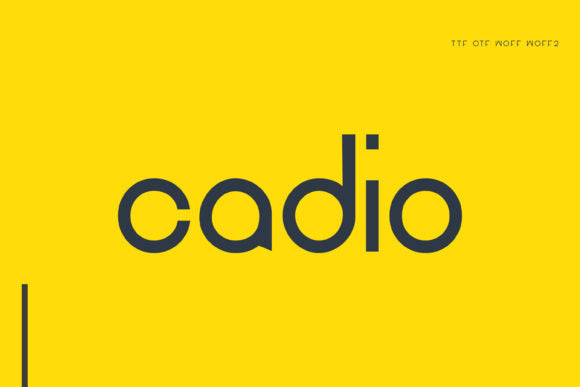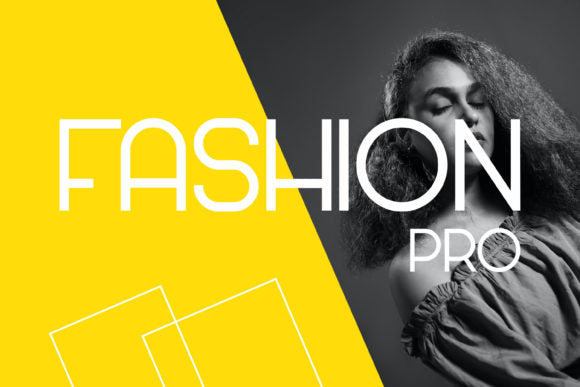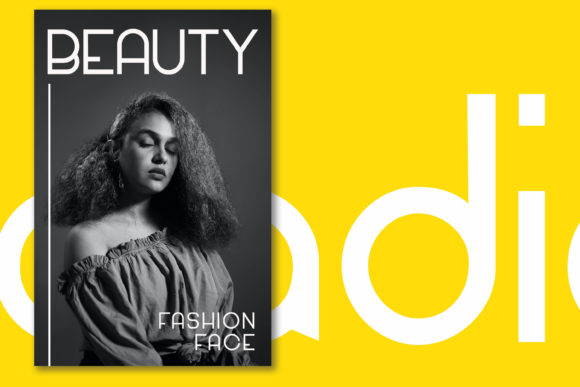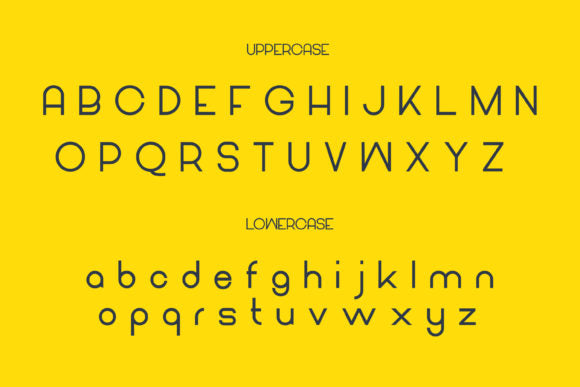
Cadio Display
Cadio is a modern geometric sans-serif typeface designed for clean, stylish, and forward-thinking visual identities. With its balanced proportions, rounded forms, and minimalist aesthetic, Cadio delivers a fresh contemporary look that works seamlessly across branding, fashion, editorial, and digital design projects.
Its sleek letterforms combine elegance and readability, making it an excellent choice for logos, magazines, websites, packaging, posters, and social media content. The font’s modern construction creates a sophisticated visual impact while maintaining clarity in both large headlines and supporting text.
Whether you're building a fashion brand, creating marketing materials, or designing a modern user interface, Cadio provides the perfect blend of simplicity, versatility, and professional appeal.
Features
- Modern geometric sans-serif typeface
- Clean and minimalist design
- Elegant rounded letterforms
- Highly readable and versatile
- Perfect for branding and editorial work
- Suitable for print and digital media
- Contemporary and professional appearance
Perfect For
- Fashion Branding
- Logo Design
- Magazine & Editorial Layouts
- Website Design
- Social Media Graphics
- Product Packaging
- Advertising Campaigns
- Corporate Identity Projects
Why Choose Cadio?
Cadio is crafted for designers who value simplicity, modern aesthetics, and flexibility. Its clean geometric structure makes it ideal for creating bold visual statements while maintaining a refined and professional look.